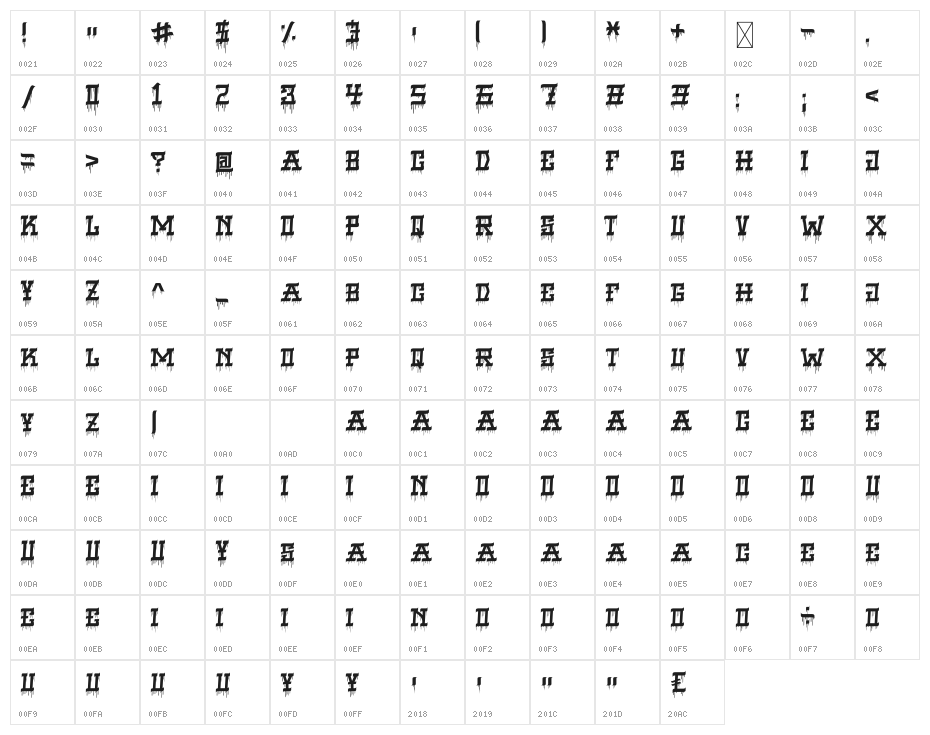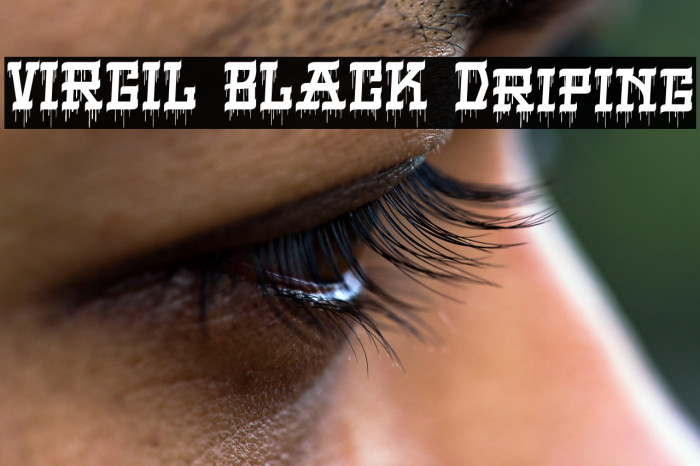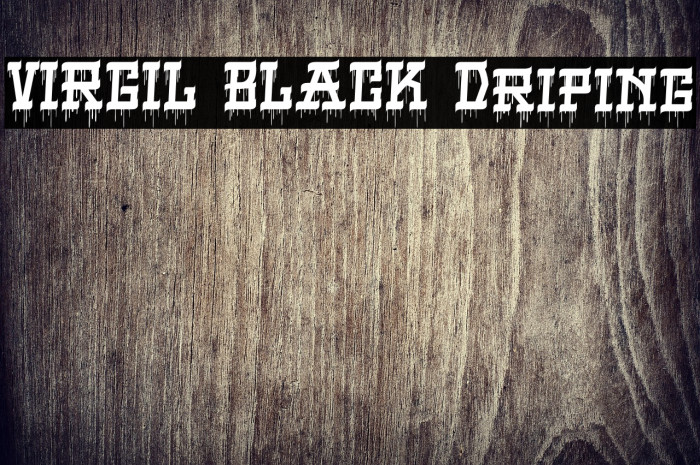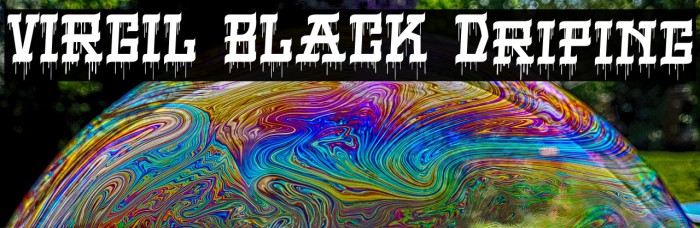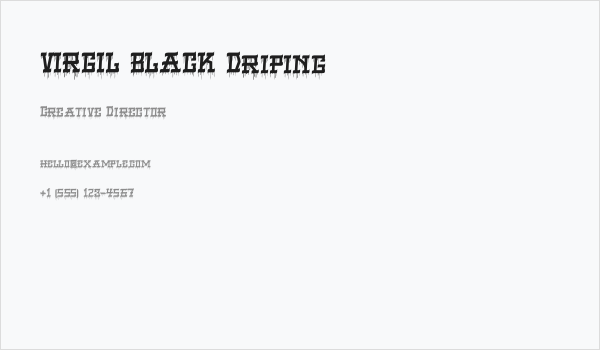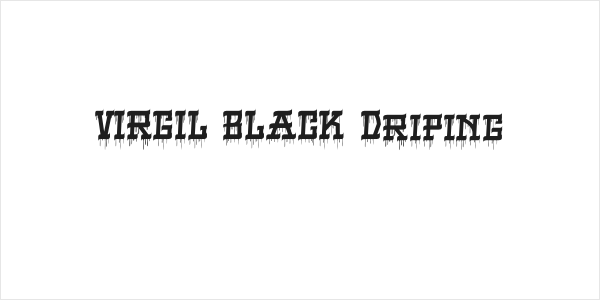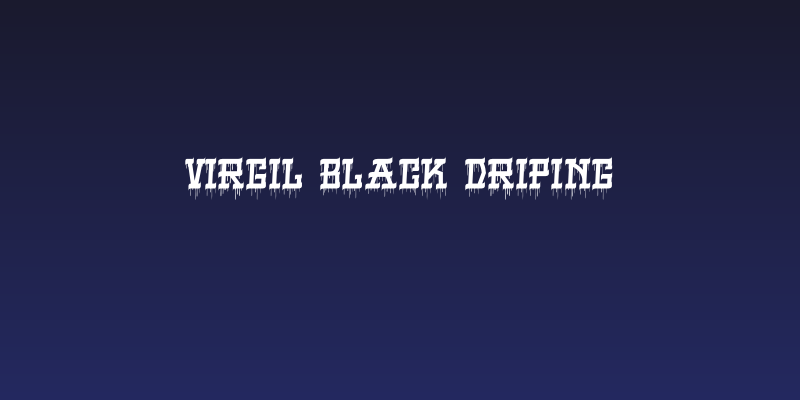
VIRGIL BLACK Driping Font
VIRGIL BLACK Driping Description
This font features a bold and dramatic style with a unique dripping effect that gives it a gothic and eerie appearance. The characters are designed with sharp edges and a heavy weight, making them stand out with a strong presence. The dripping effect adds a sense of movement and fluidity, reminiscent of melting or bleeding ink. This font is ideal for creating a spooky or horror-themed atmosphere, perfect for Halloween designs or any project that requires a touch of the macabre. The uppercase and lowercase letters maintain a consistent style, while the numbers and special characters complement the overall aesthetic.
| Overall Style | Gothic, Horror |
| Proposed Projects | Ideal for Halloween posters, horror movie titles, themed event invitations, and spooky merchandise designs. |